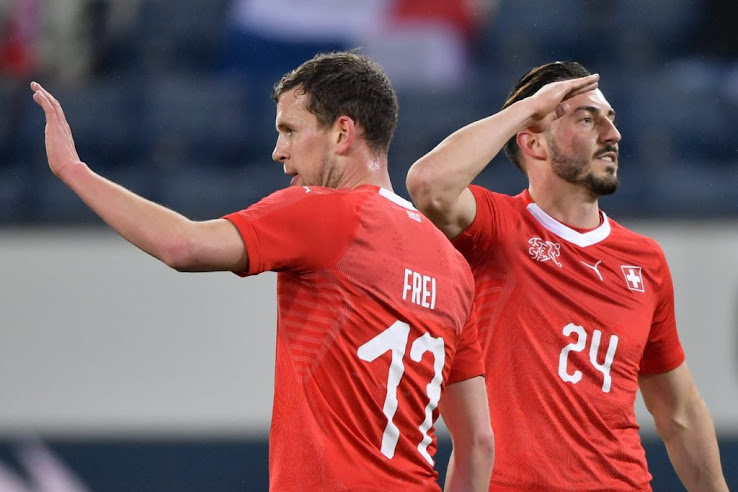
Unique Puma 2018 World Cup Font Revealed
Puma designed a unique typeface for the 2018 World Cup. The new Puma 2018 World Cup font is used for all of Puma's sponsored 2018 World Cup teams.
Puma 2018 World Cup Typeface
Here are some examples of the Puma 2018 World Cup font on Switzerland's home uniform.
The Puma 2018 World Cup font has a unique shape and design. It is an industrial-inspired look that stands in stark contrast to Puma's previous fonts and Adidas' and Nike's 2018 World Cup typefaces.
Puma's 2018 World Cup font comes without any custom elements for all teams except Italy.
The new Puma 2018 World Cup font is also used for all other Puma 2018 national team kits, including those of Italy.